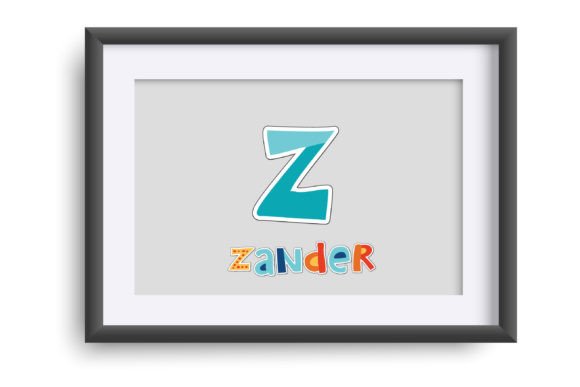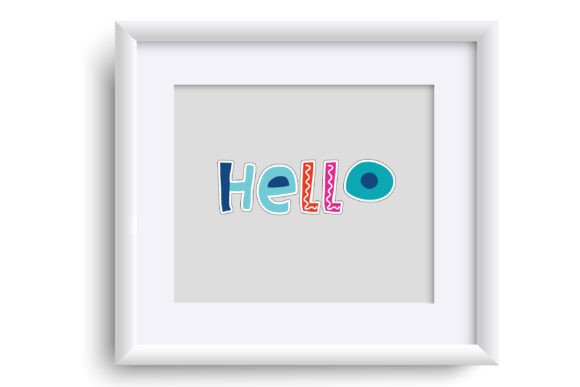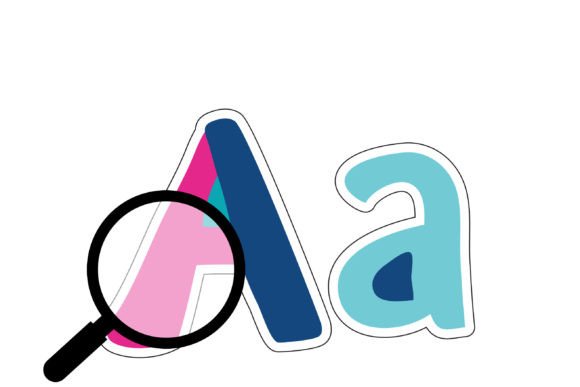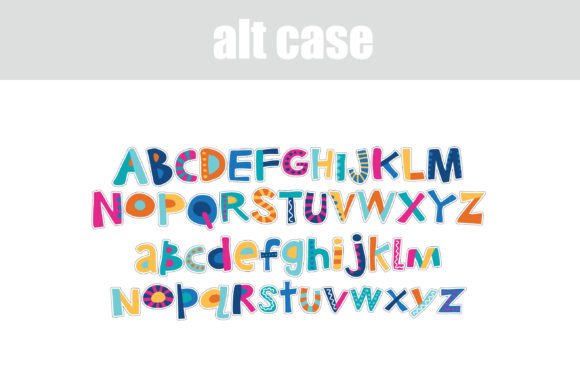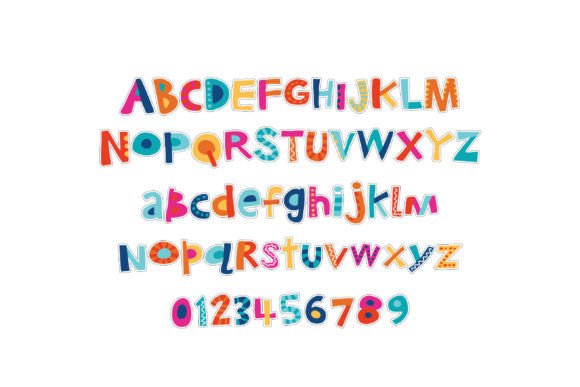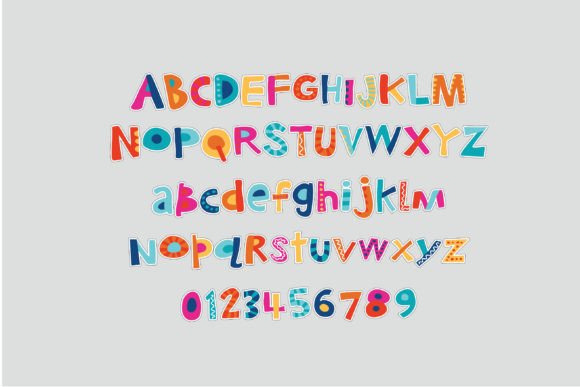
Introducing Curiousity Font: A Vibrant and Creative Addition to Your Design Arsenal
Are you tired of using the same old fonts in your designs? Look no further than Curiousity Font, a full-color font that is sure to add a pop of personality to your titles, displays, posters, and more. This creative and crafty font features a hot, summer color palette that is perfect for designers and crafters looking to add a touch of whimsy to their work.
What Makes Curiousity Font So Special?
Curiousity Font is a game-changer in the world of typography. Its unique feature is that it comes with an alternative case that includes additional colors, which can be accessed through your system or Silhouette’s glyph map. This means that you have even more creative options at your fingertips, allowing you to customize your designs to your heart’s content.
Tips for Getting the Most Out of Curiousity Font
To make the most of Curiousity Font, here are a few tips to keep in mind:
- Use it for titles and displays: Curiousity Font is perfect for adding a touch of personality to your titles and displays. Its bold and colorful design makes it easy to grab attention and add visual interest to your designs.
- Experiment with different colors: With its alternative case and additional colors, Curiousity Font offers endless possibilities for customization. Don’t be afraid to experiment and try out different color combinations to find the one that works best for your design.
- Pair it with complementary fonts: To create a cohesive look, consider pairing Curiousity Font with complementary fonts that share a similar style or aesthetic.
The Benefits of Full-Color SVG Fonts
Curiousity Font is a full-color SVG font, which offers a range of benefits for designers and crafters. Some of the advantages of using full-color SVG fonts include:
- Vibrant colors: Full-color SVG fonts allow you to add vibrant colors to your designs, making them more visually appealing and engaging.
- Scalability: SVG fonts are scalable, meaning that they can be resized without losing any quality. This makes them perfect for use in a range of applications, from business cards to billboards.
Curiousity Font is a unique and creative addition to any designer’s arsenal. Its hot, summer color palette and alternative case with additional colors make it perfect for adding a touch of personality to titles, displays, posters, and more. With its compatibility with Silhouette Studio and other programs, it’s easy to incorporate into your design workflow. So why settle for ordinary fonts when you can add a pop of color and creativity to your designs with Curiousity Font?
Whether you’re a designer, crafter, or simply someone who loves to create, Curiousity Font is sure to inspire and delight. So go ahead, get curious, and see what amazing designs you can create with this vibrant and creative font!